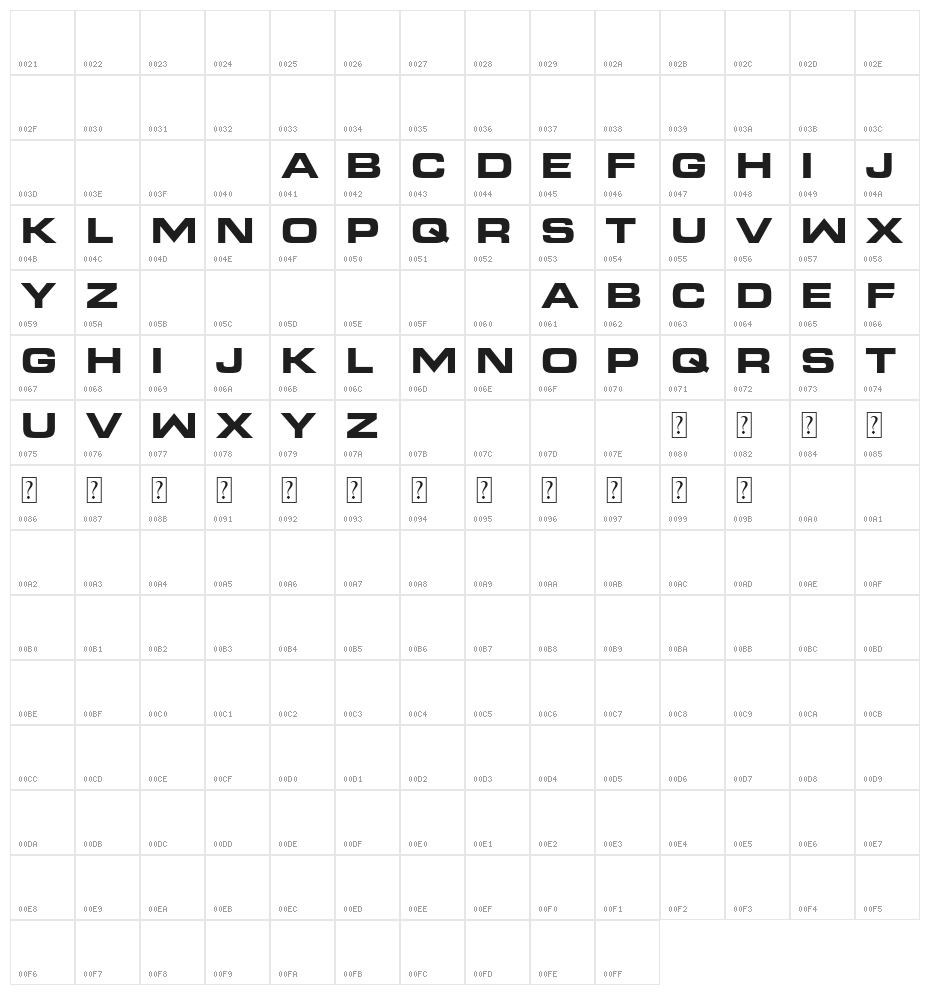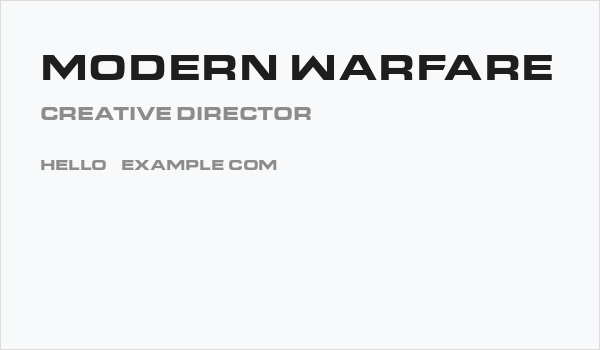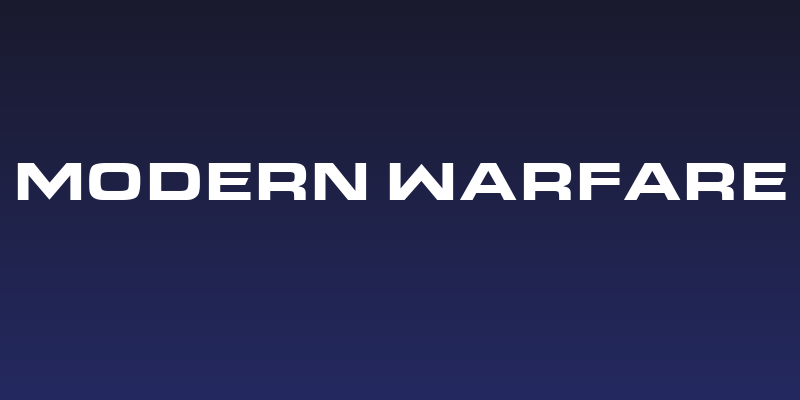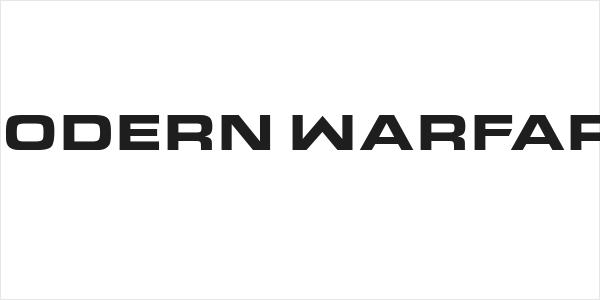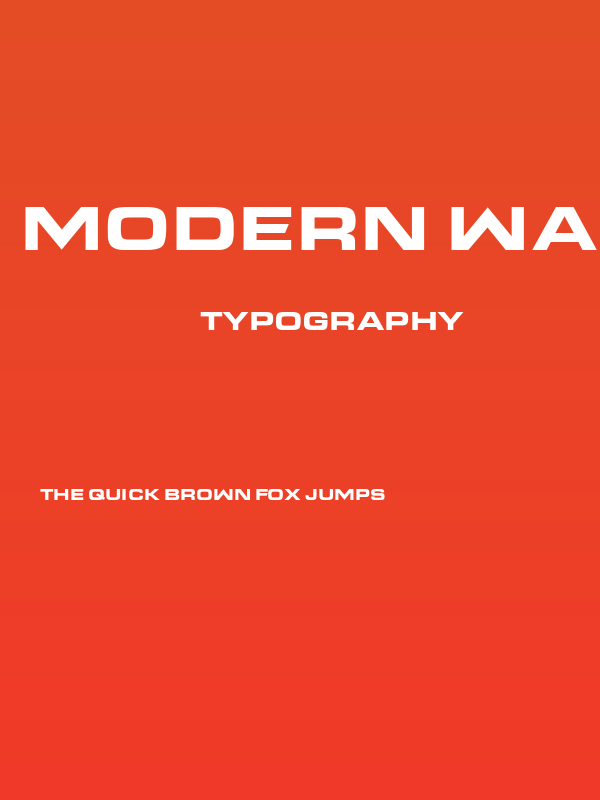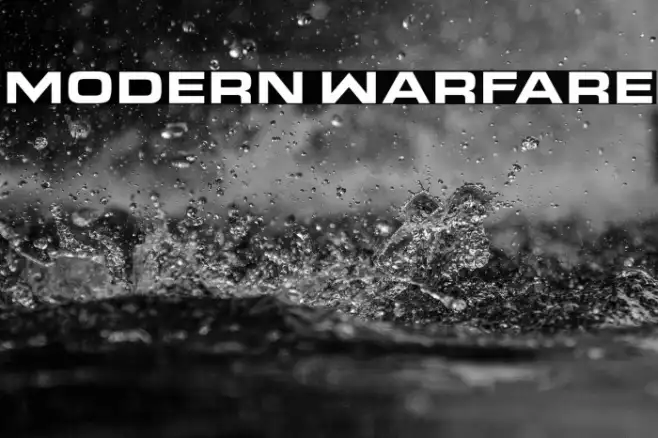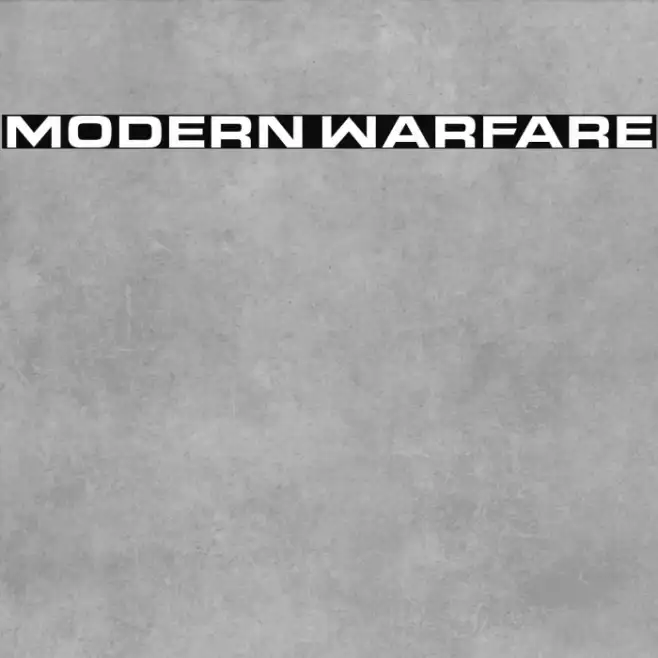
Modern Warfare Font
Modern Warfare Description
This font features a bold and modern design with a strong geometric structure. The characters are wide and have a uniform thickness, giving them a robust and impactful appearance. The uppercase letters are particularly striking, with sharp angles and clean lines that convey a sense of strength and precision. The font's overall style is sleek and contemporary, making it suitable for projects that require a bold and assertive visual presence. The spacing between characters is tight, enhancing the compact and cohesive look of the text.
| Proposed Projects | Ideal for branding, headlines, posters, and digital media where a strong, modern aesthetic is desired. |